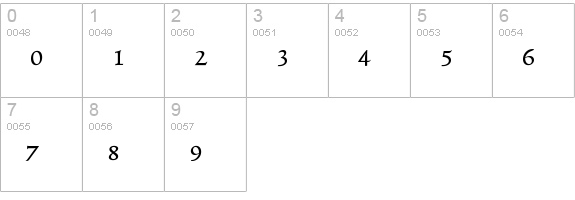
TriniteNo2-RomanCondPi is a stunning font that effortlessly combines elegance and modernity. With its sleek and slender letterforms, this font exudes sophistication and style. Each character is meticulously crafted, resulting in a typeface that is both visually captivating and highly legible. The TriniteNo2-RomanCondPi font is perfect for a wide range of design projects, including branding, advertising, packaging, and more. Its versatility allows it to seamlessly adapt to any creative vision, adding a touch of refinement to any composition. One of the most remarkable aspects of TriniteNo2-RomanCondPi is that it is not only visually stunning but also freely available to download. You can easily access this exceptional font at FontsMarket.com, a trusted source for high-quality fonts. Whether you are a professional designer or an enthusiastic hobbyist, this font provides an incredible opportunity to enhance your creative endeavors without any financial barriers. Embrace the beauty of TriniteNo2-RomanCondPi and elevate your typography game. Download this font today and witness the instant transformation it brings to your design projects.